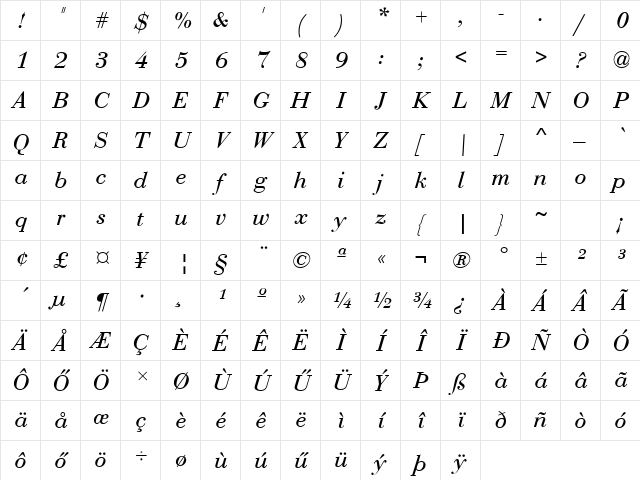
Bodoni Roman Italic Free Font
Complete Bodoni Roman Italic glyph index. Displaying only characters natively supported by Bodoni Roman Italic font.
Design Context for Bodoni Roman
Bodoni Roman is a composed and adaptable typeface that performs quietly and consistently across a wide range of design contexts. The slanted form adds forward momentum and visual energy.
Pro Tip: Use Bodoni Roman for emphasis, pull quotes, and subheadings where its slanted energy can add rhythm to the layout.